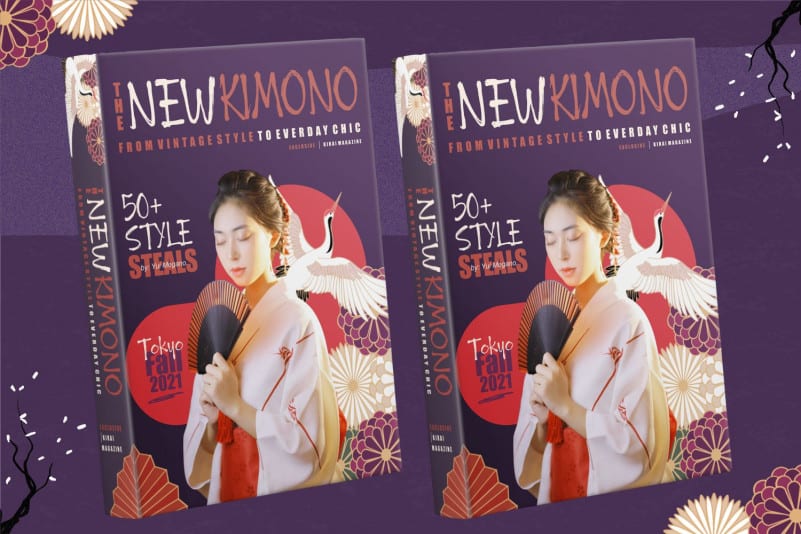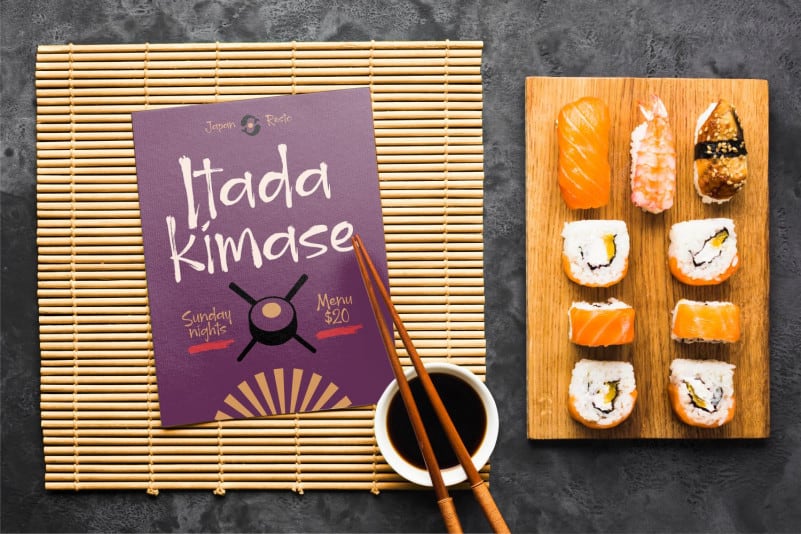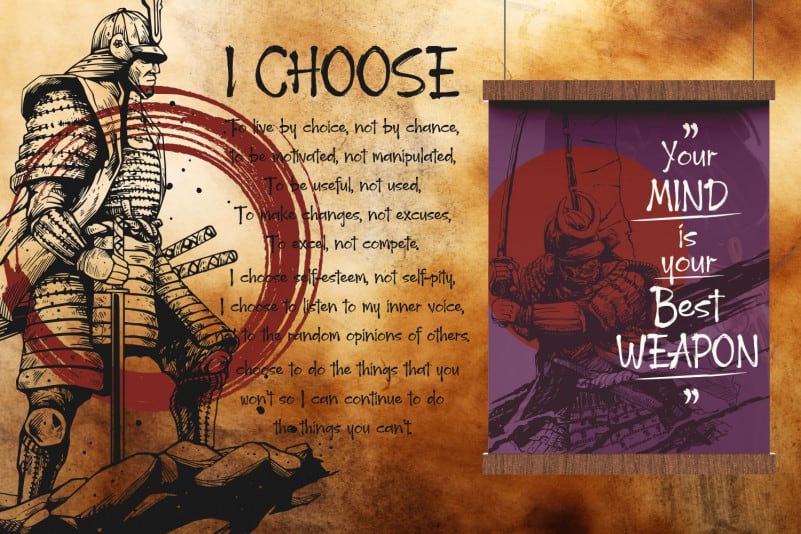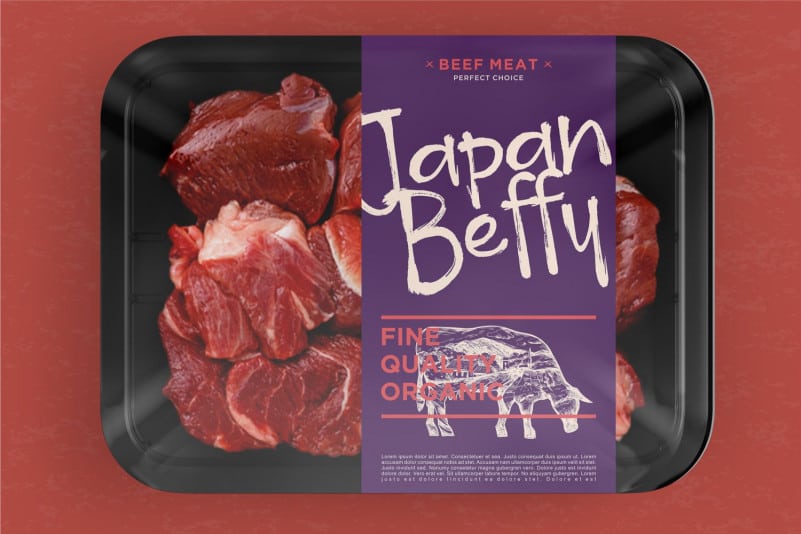
Hogback Brush Font is a Brush Japanese Style Font. Hogback is perfect for product packaging, branding project, megazine, social media, wedding, or just used to express words above the background.